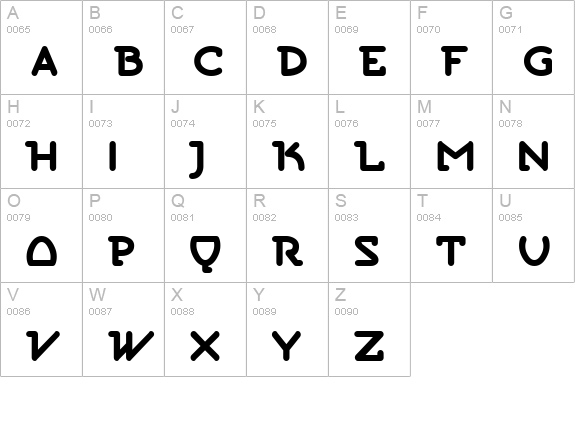
SanitaryBold Caps Font Details
SanitaryBold Caps font is a versatile and modern typeface that exudes cleanliness and professionalism. Its bold and sleek design makes it perfect for a wide range of design projects, from branding to advertising. The bold capital letters command attention and create a strong visual impact. What makes SanitaryBold Caps font even more appealing is that it is available for free download at FontsMarket.com. Whether you are a designer looking for a new font to elevate your projects or a business owner in need of a fresh look for your branding, SanitaryBold Caps font is a fantastic choice. Download it today and add a touch of sophistication to your designs.